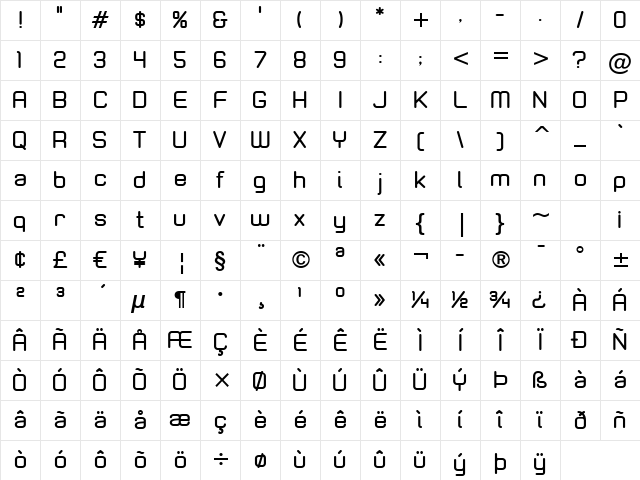
Complete Zolano Sans BTN Bold glyph index. Displaying only characters natively supported by Zolano Sans BTN Bold font.
Zolano Sans BTN is a composed and adaptable typeface that performs quietly and consistently across a wide range of design contexts. Its bold stroke weight gives it real presence on the page.